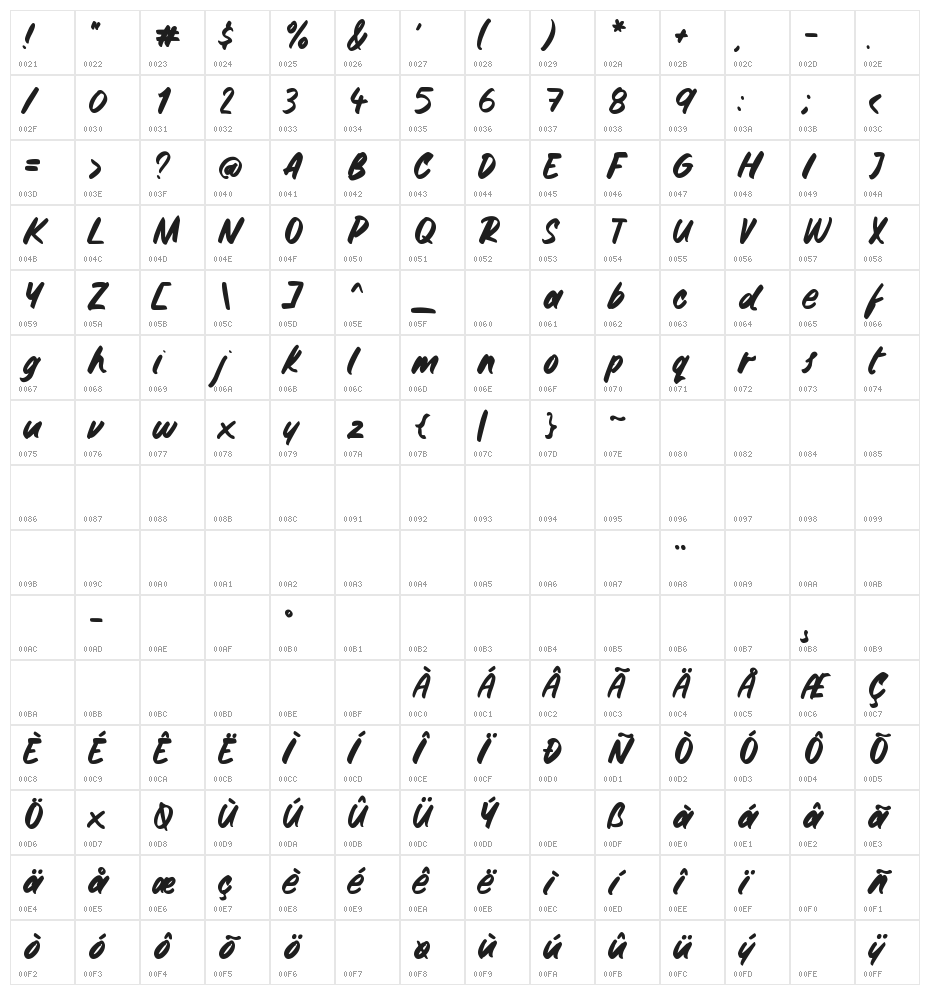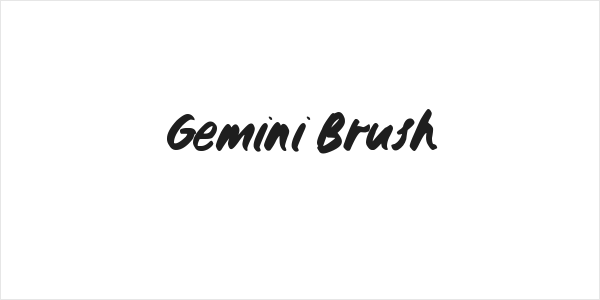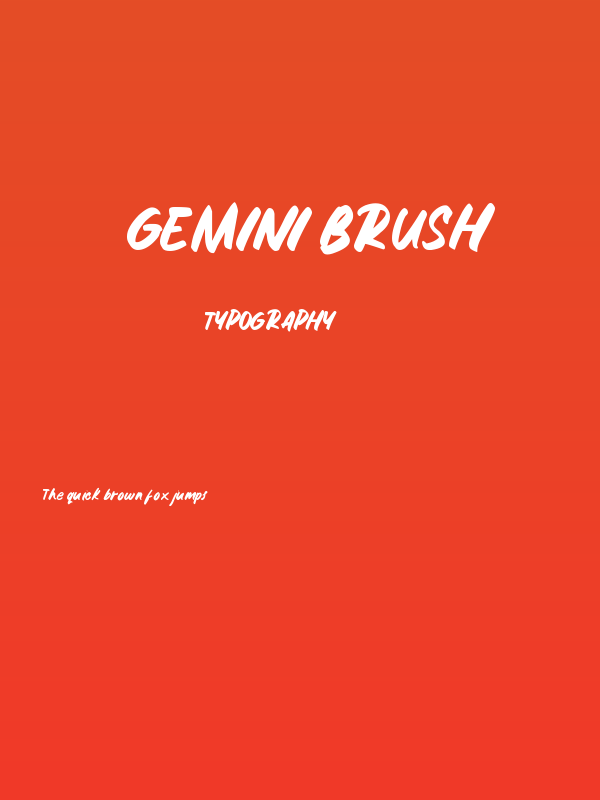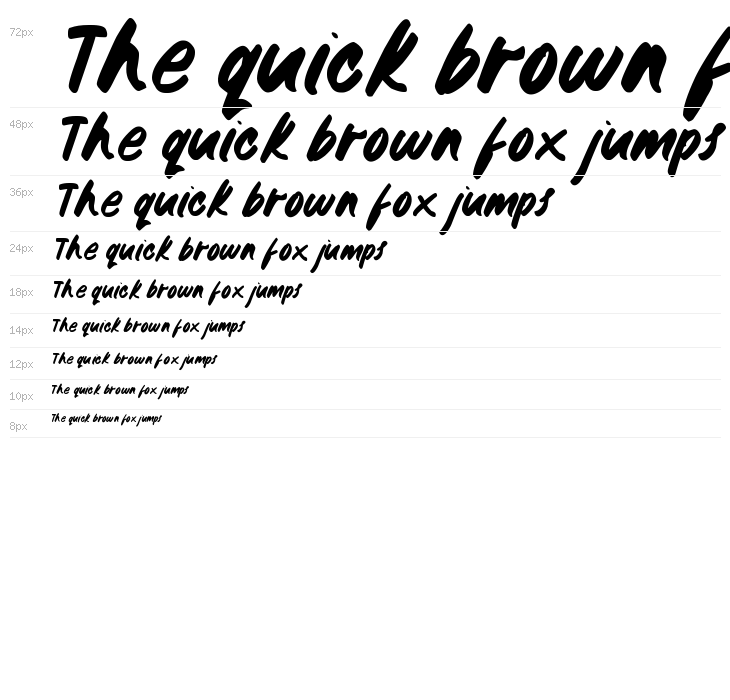
Gemini Brush Font
Gemini Brush Description
This font features a bold and dynamic brush style, characterized by its fluid and expressive strokes. The letters are crafted with a sense of movement, giving them a lively and energetic appearance. The uppercase and lowercase letters maintain a consistent style, with rounded edges and a slightly slanted orientation, enhancing the handwritten feel. The numbers and special characters are equally expressive, maintaining the overall aesthetic. This font is ideal for projects that require a personal touch, such as invitations, posters, and branding materials.
Proposed ProjectsIdeal for invitations, posters, branding, and any project needing a personal, energetic touch.